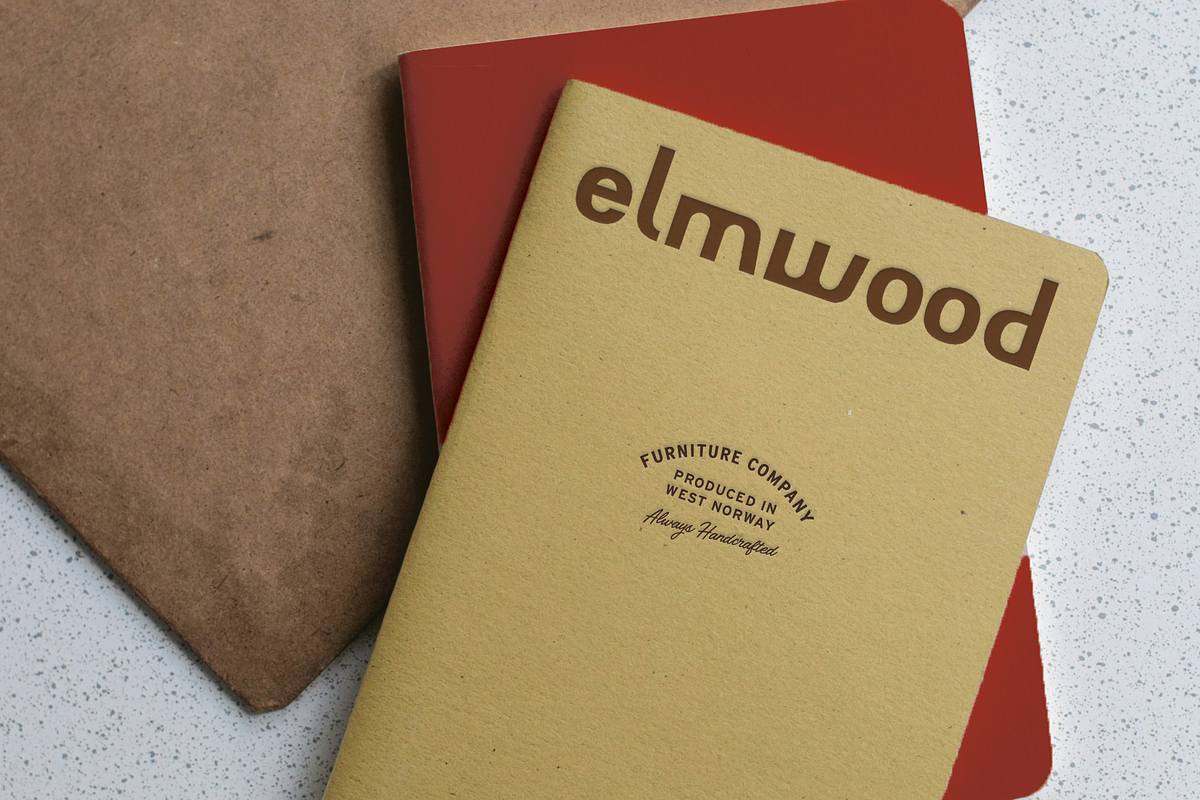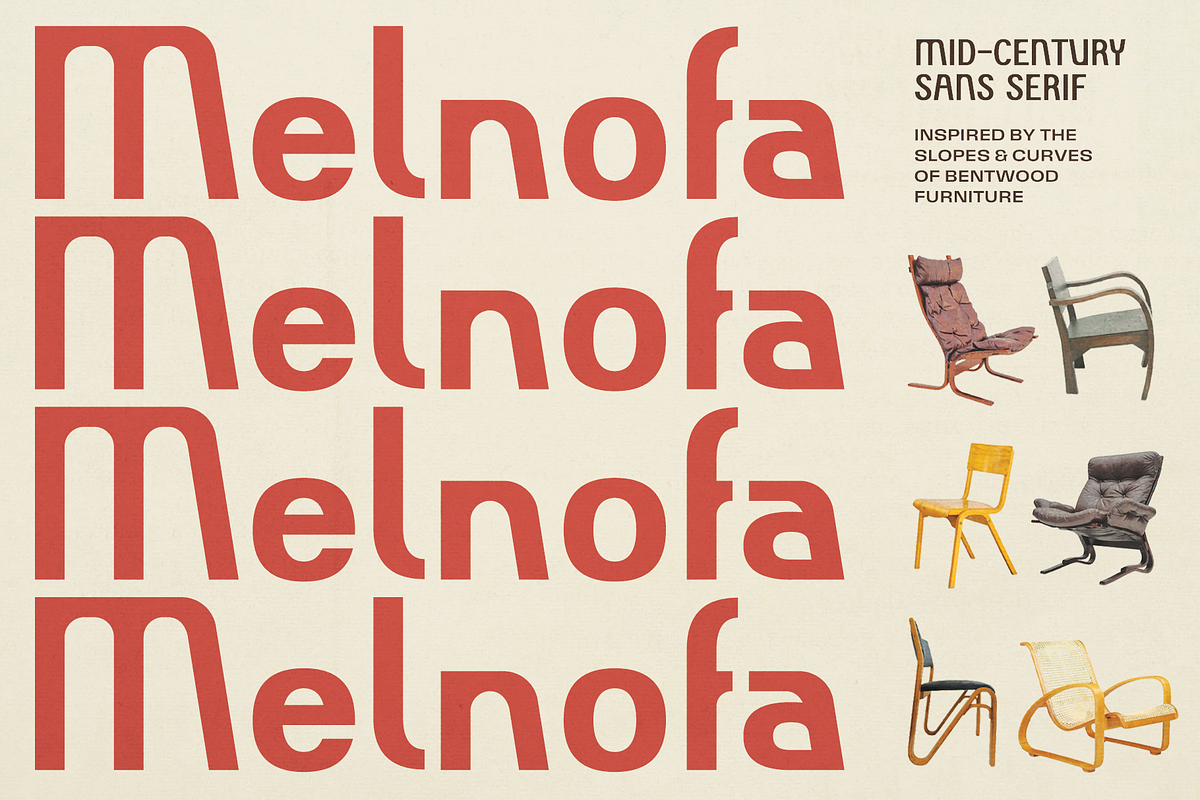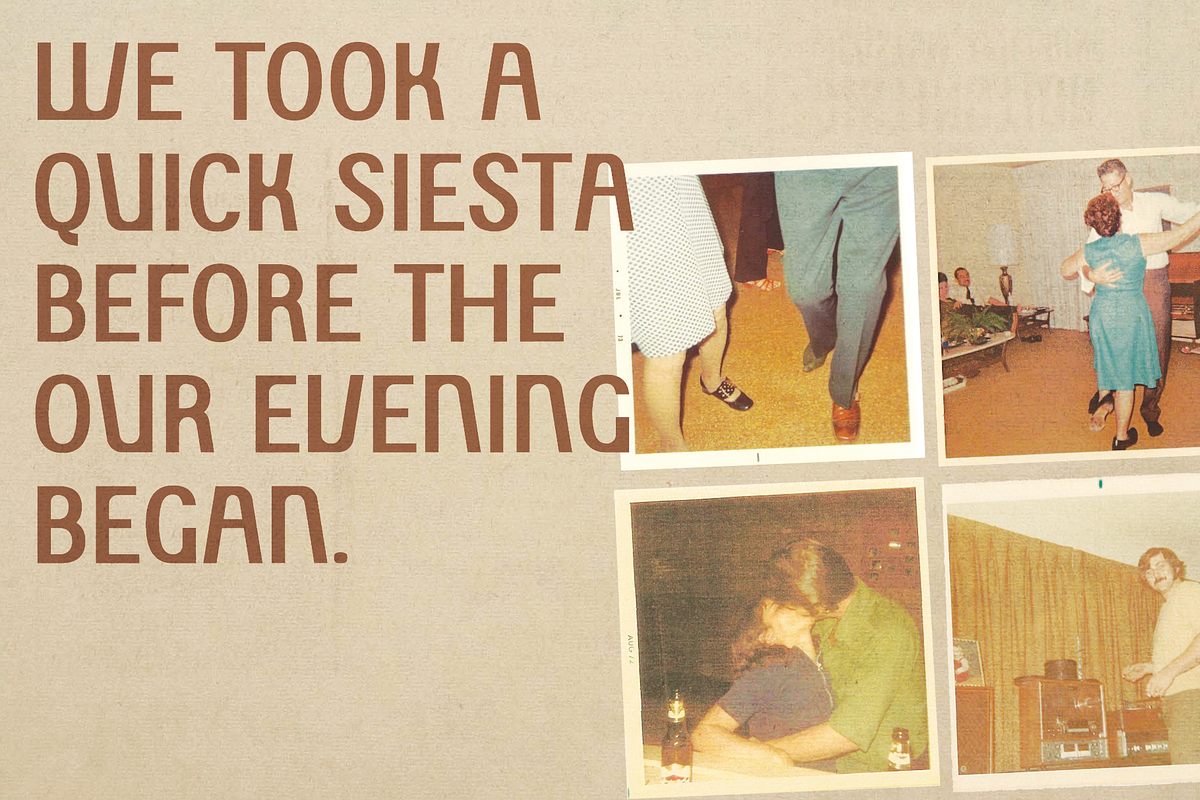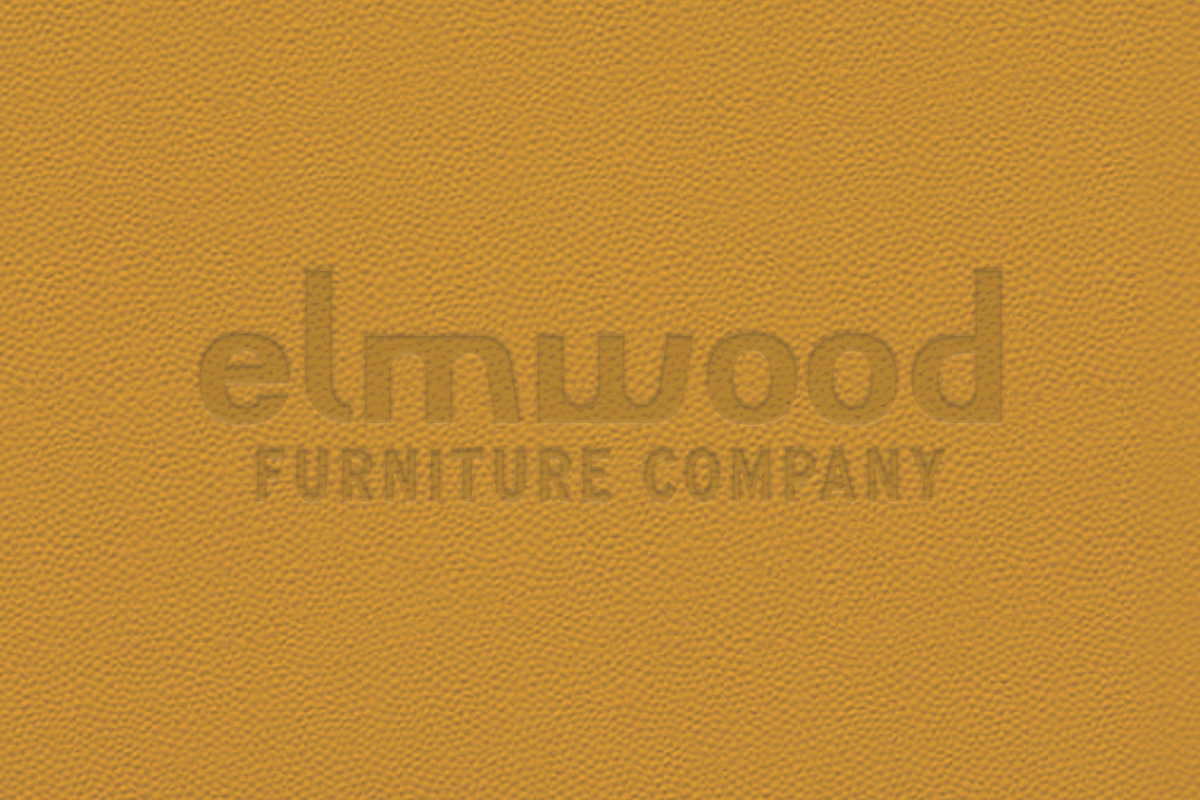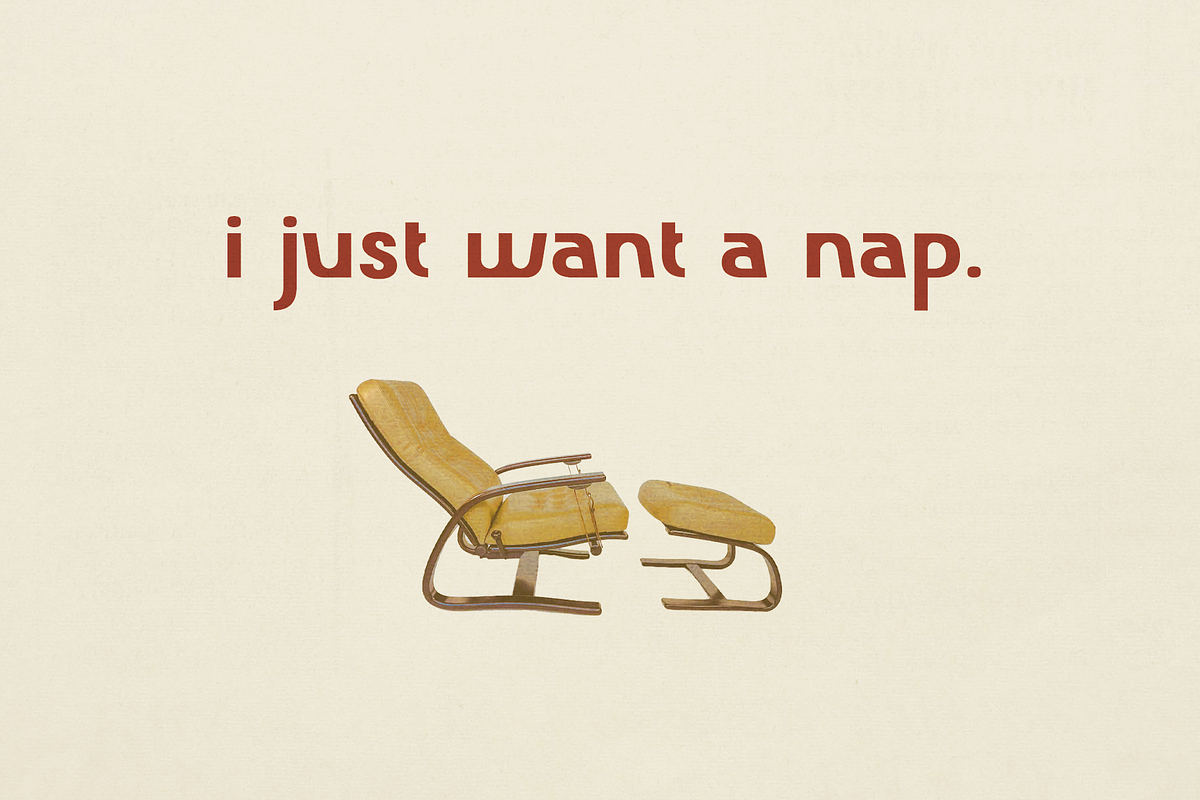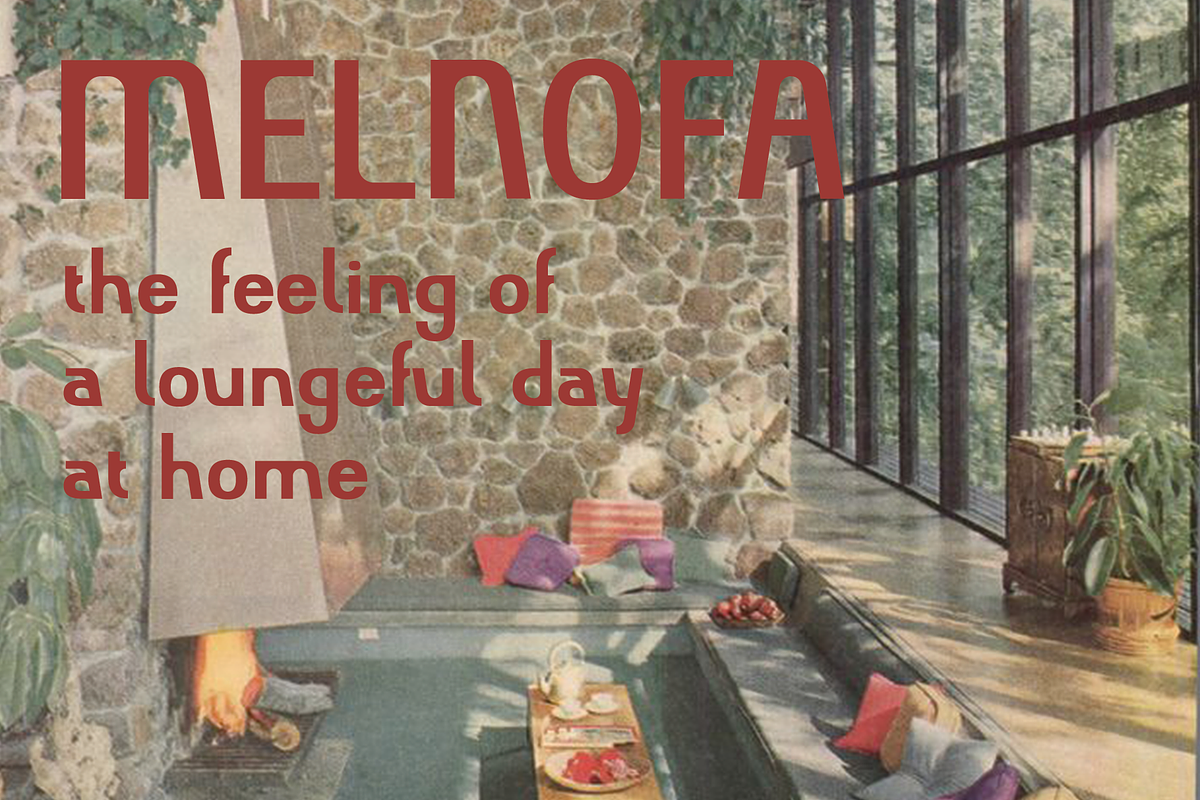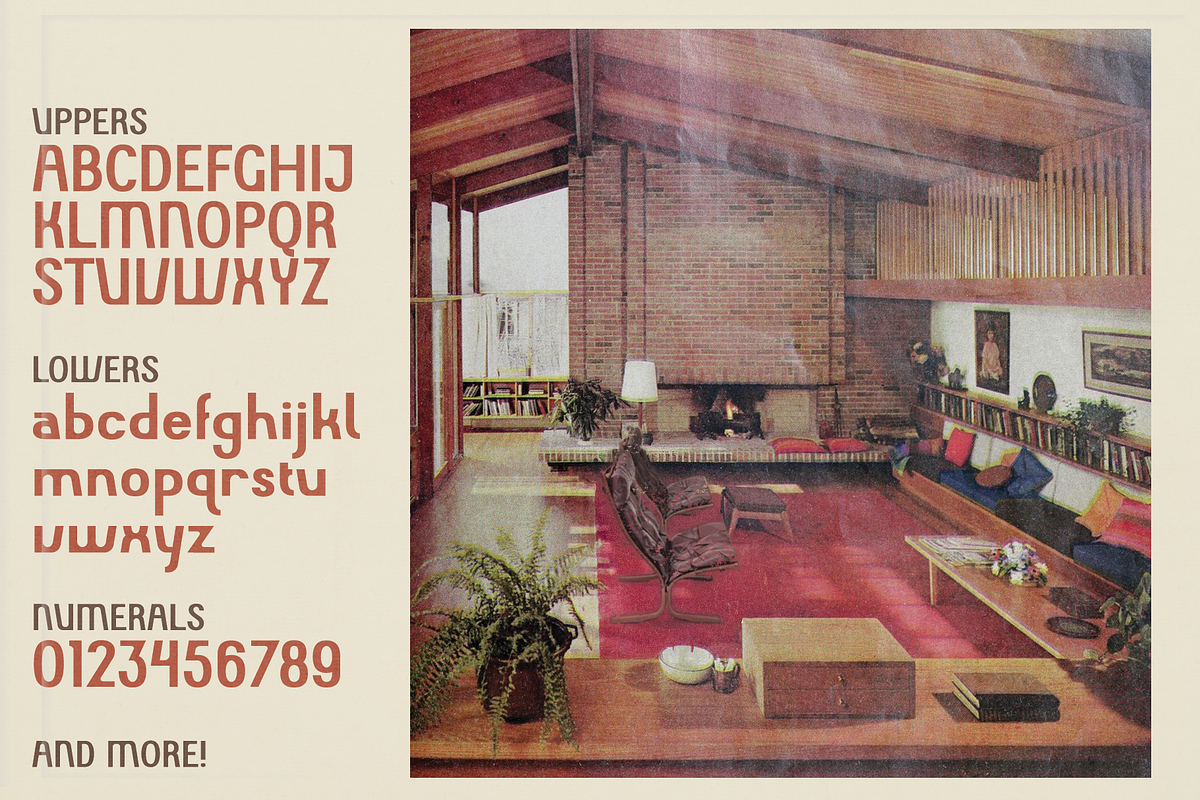
MELNOFA Typeface
Melnofa is a mid-century sans-serif inspired by bentwood furniture from the 60s. It features sloped letterforms with subtle rounding, like the structure of the Siesta chair from Ingmar Relling. Melnofa is based on found type from a 1960s book cover found at an estate sale in Austin, Texas.